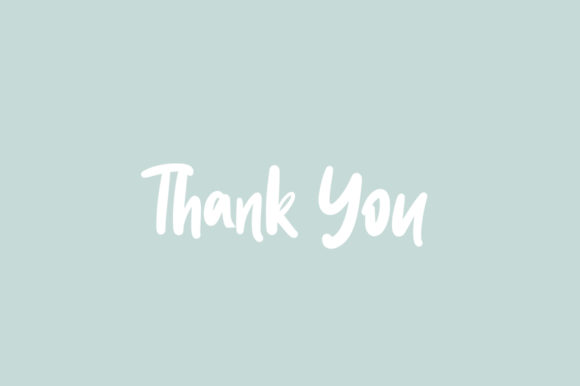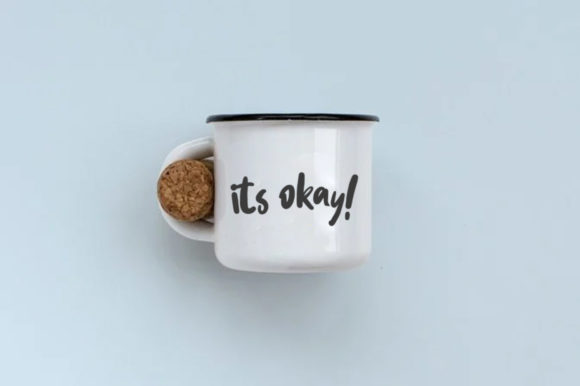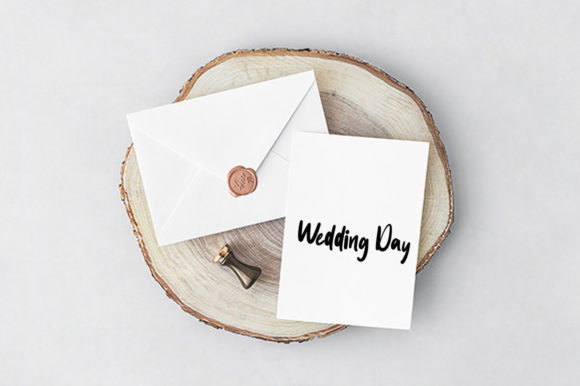
Introduction to Folewer Font
Folewer is sweet and cute script font.
This font has a strong yet friendly shape, and as a result, it will match a wide range of informal designs Create any cute, funny and stunning designs using Folewer font.